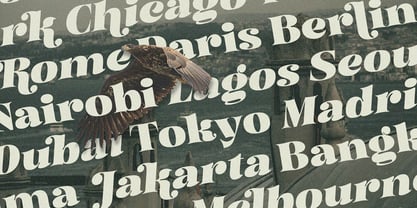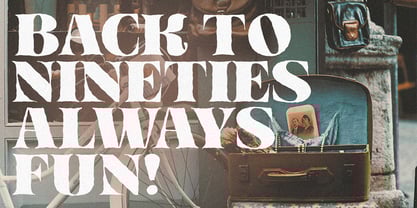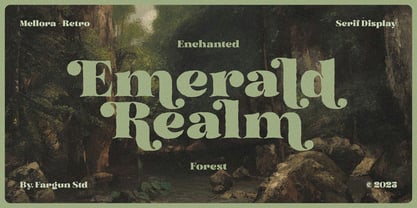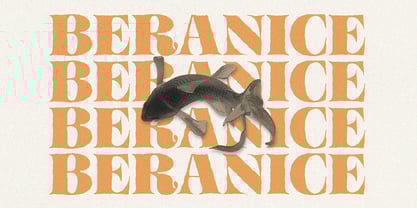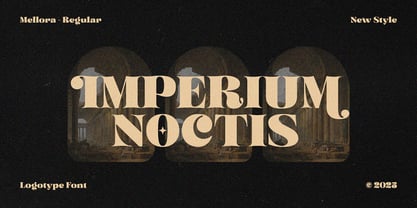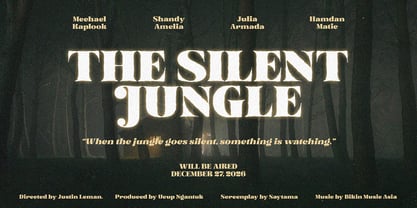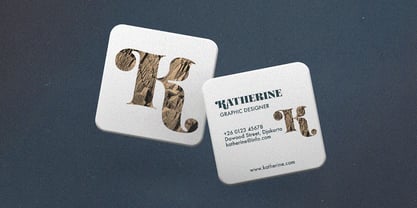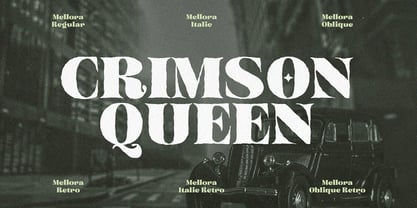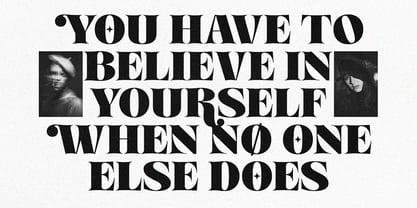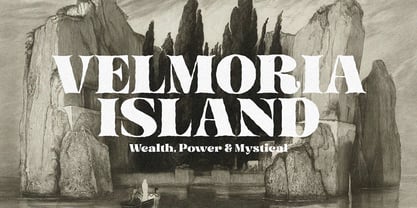
Mellora
by Fargun Studio
The Mellora Font Family was designed by Fajar Gunawan and published by Fargun Studio. Mellora contains 4 styles and family package options.
Mellora is a serif display font crafted with an air of tranquility and sophistication. Designed to evoke elegance, it comes in regular and italic with retro styles that offer versatility across a wide range of design projects.
With its smooth curves and graceful lines, Mellora is equally suited for striking headlines and refined body text. Featuring ten unique styles, it allows for effortless mixing and matching, making it easy to create visually engaging typographic compositions.
Whether you’re designing a magazine layout, a distinctive logo, or an eye-catching poster, Serenity adds a touch of refinement to your work. It is thoughtfully designed to enhance clarity and cohesion, making it a valuable addition to your creative toolkit.